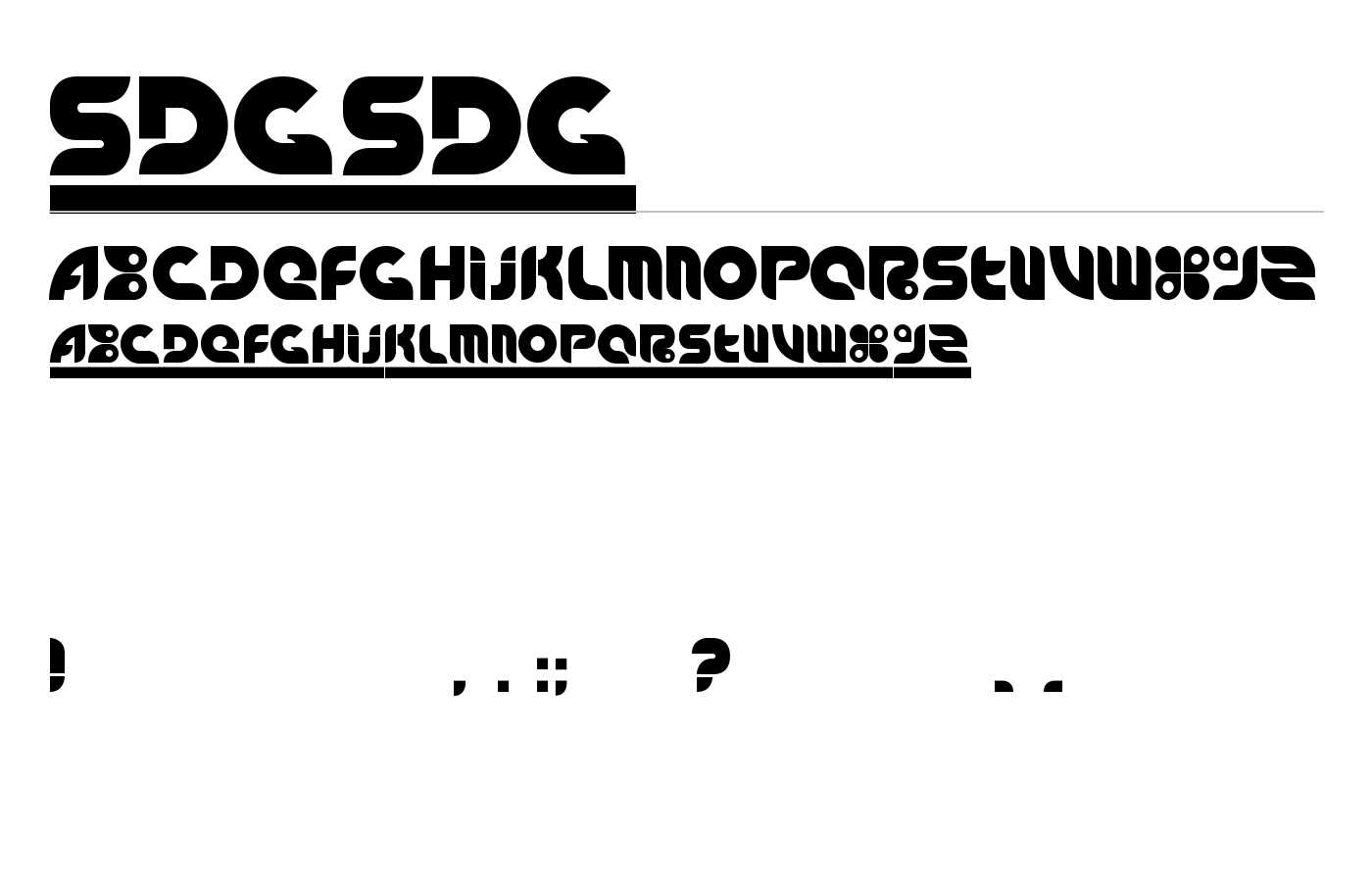
ArnStylo is a bold, geometric sans serif font with a distinctly modern and futuristic vibe. Its heavy weight, compact width, and unique letterforms featuring sharp angles and rounded edges make it an ideal choice for eye-catching headlines, logos, and branding where a strong, technological personality is desired. This font works best in creative and edgy design projects looking to convey innovation and style.
ArnStylo Font